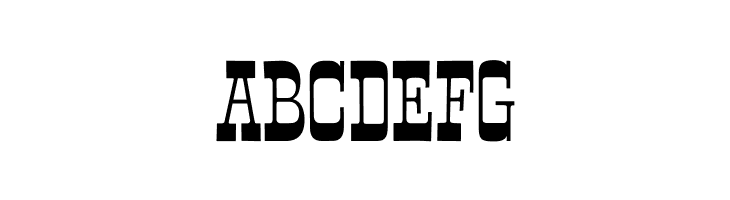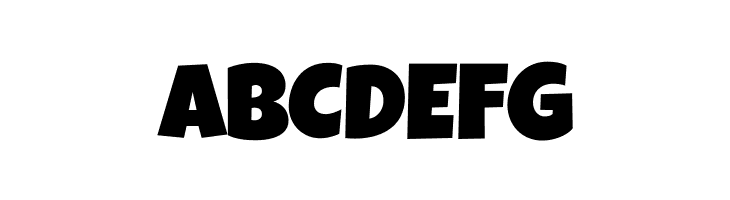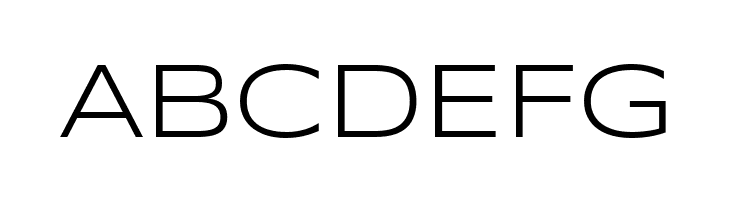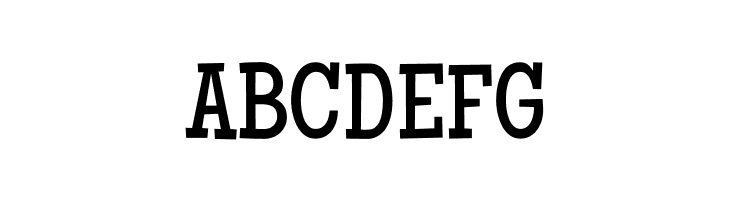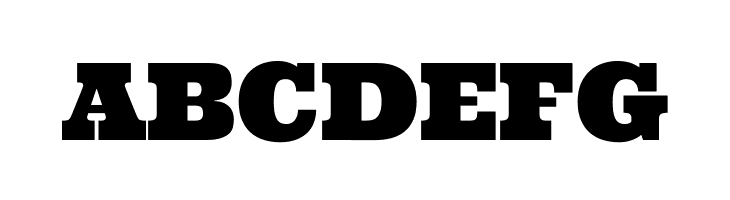
A bold, slab serif font with a Western-inspired, vintage style.
A bold, playful font with rounded, cartoonish letterforms.
A modern, geometric sans-serif font with balanced spacing and clear characters.
A bold, playful font with vintage charm and approachable characters.
A bold, slab serif font with a vintage yet modern appeal.